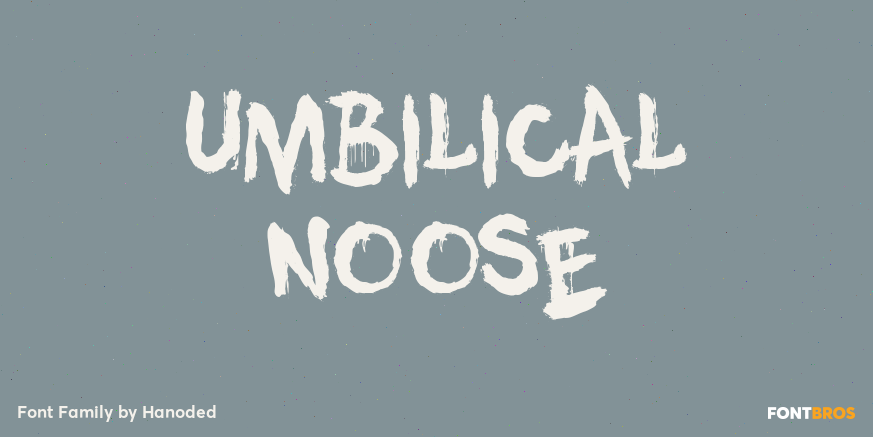
Umbilical Noose
Umbilical Noose is a rather scary typeface. It is quite similar to an older font of mine: Nyctophobia. The name comes from a Nirvana song called Heart Shaped Box, in which Kurt Cobain sings: \’throw down your umbilical noose, so I can climb right back?.…